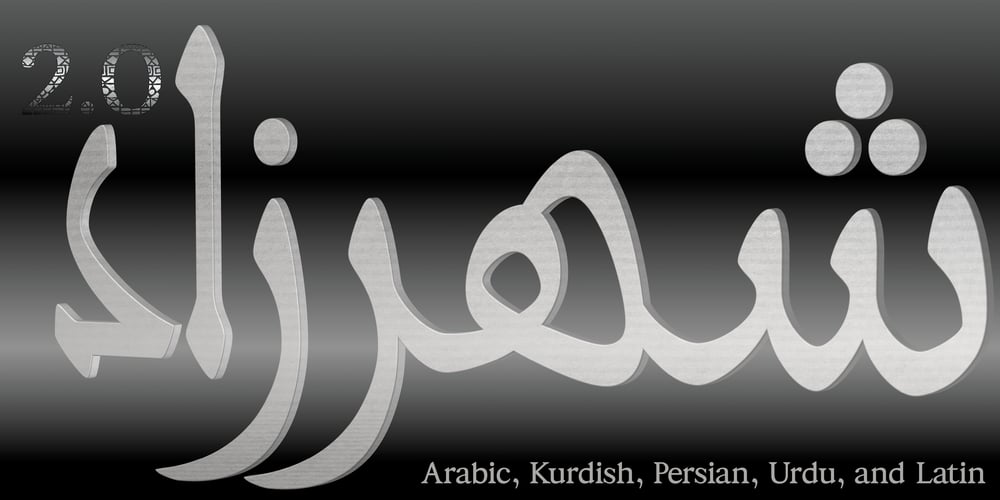
Shahrazed 2.0 Font Family was designed by Ammar Bouras and published by GrafikarFonts. Shahrazed 2.0 contains 6 styles and family package options. Shahrazed 2.0 is an arabic and latin typeface.Shahrazed, Arabic glyphs are based on calligraphic writing inspired by Naskh and Maghrabi. (1366 Glyphs)It has more than 400 ligatures which add an aesthetic advantage in the connections of the glyphs. Also, stylistic set and variations that enrich the aesthetic aspect and the composition and layout needs.